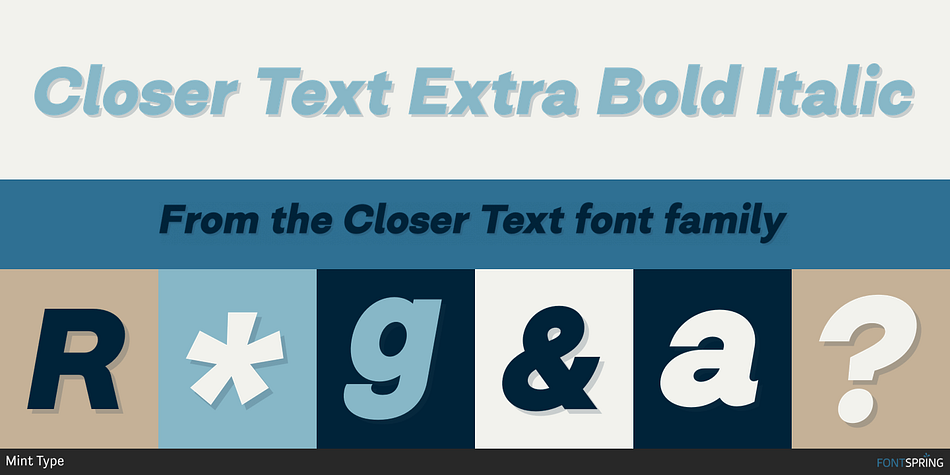
Closer Text Extra Bold Italic
Designed by Andriy Konstantynov, Closer Text is a sans serif font family. This typeface has eighteen styles and was published by Mint Type.
Closer Text is a narrower, more compact version of previously released Closer.
Closer Text is a highly customizable Swiss grotesque with overclosed aperture. Featuring some humanistic shapes, Closer Text feels less bland though still relatively neutral.
Closer Text comes in 9 weights (18 styles altogether), features extensive language support including Cyrillic and is highly customizable with 7 stylistic sets to mix and match.